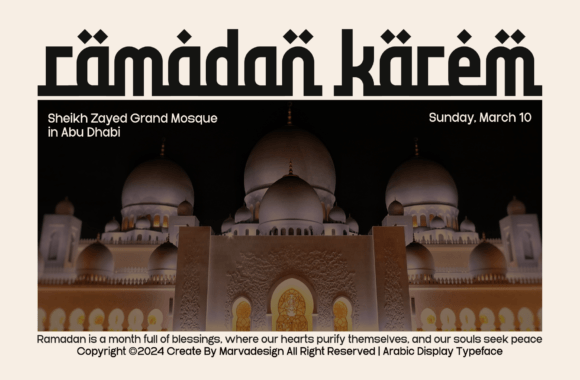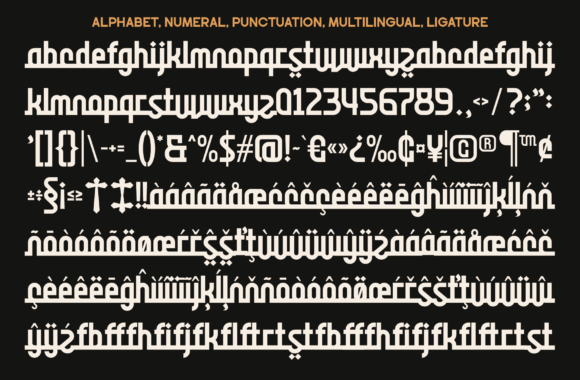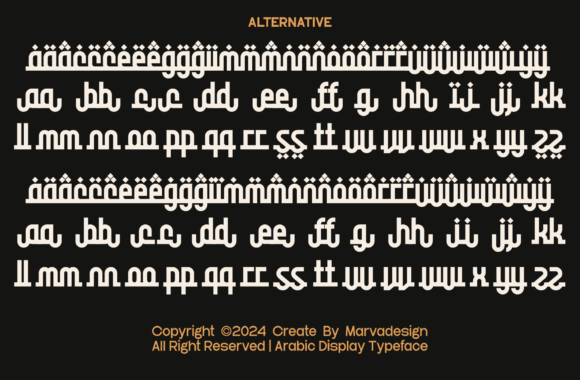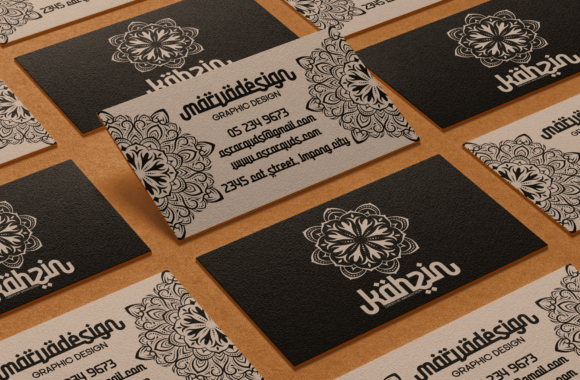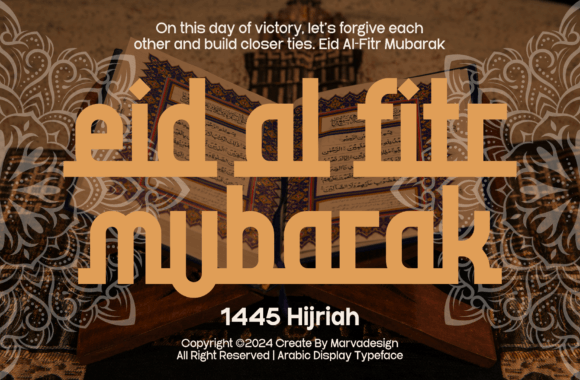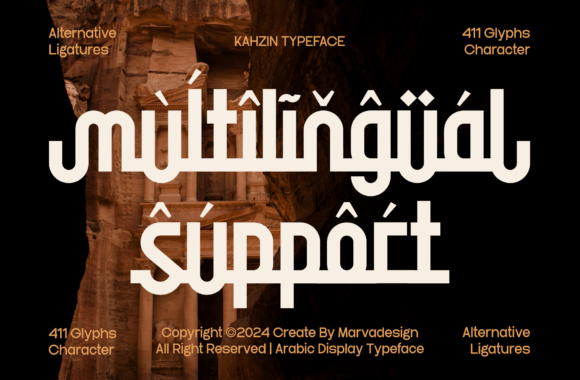
Introduction to Kahzin Font Font
Fonts play a crucial role in design, and the Kahzin Font font is a typeface that brings both character and versatility to any project. Whether you’re working on a branding project, a website, or a print design, the Kahzin Font font offers a unique style that can elevate your work.
Introducing our new product **Kahzin Font** – A Modern Arabic Font **Kahzin Font** – combines the beauty of traditional Arabic letters with modern design elements.
Clean, well-proportioned lines provide an elegant and easy-to-read impression The strength and flexibility of the letterform makes it ideal for use in large headlines and stand-out posters.
Key Features of Kahzin Font Font
Why Choose Kahzin Font Font?
The Kahzin Font font is more than just a typeface – it’s a design tool that helps you communicate your message with style and clarity. Its unique character set and versatile design make it suitable for a wide range of applications, from elegant invitations to bold headlines.
With its carefully crafted letterforms and balanced proportions, the Kahzin Font font ensures readability and visual appeal across all mediums.
What makes Kahzin Font font special?
The Kahzin Font font stands out with its unique design, exceptional readability, and versatility across various design applications.